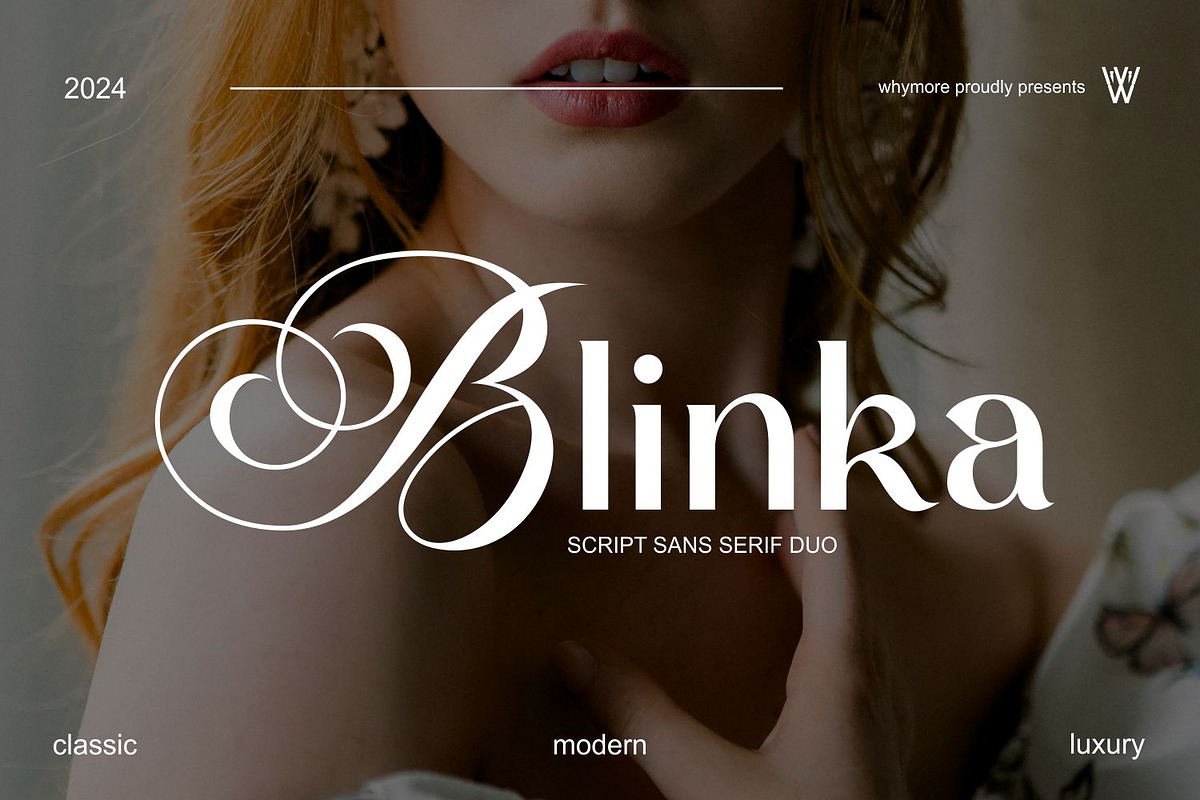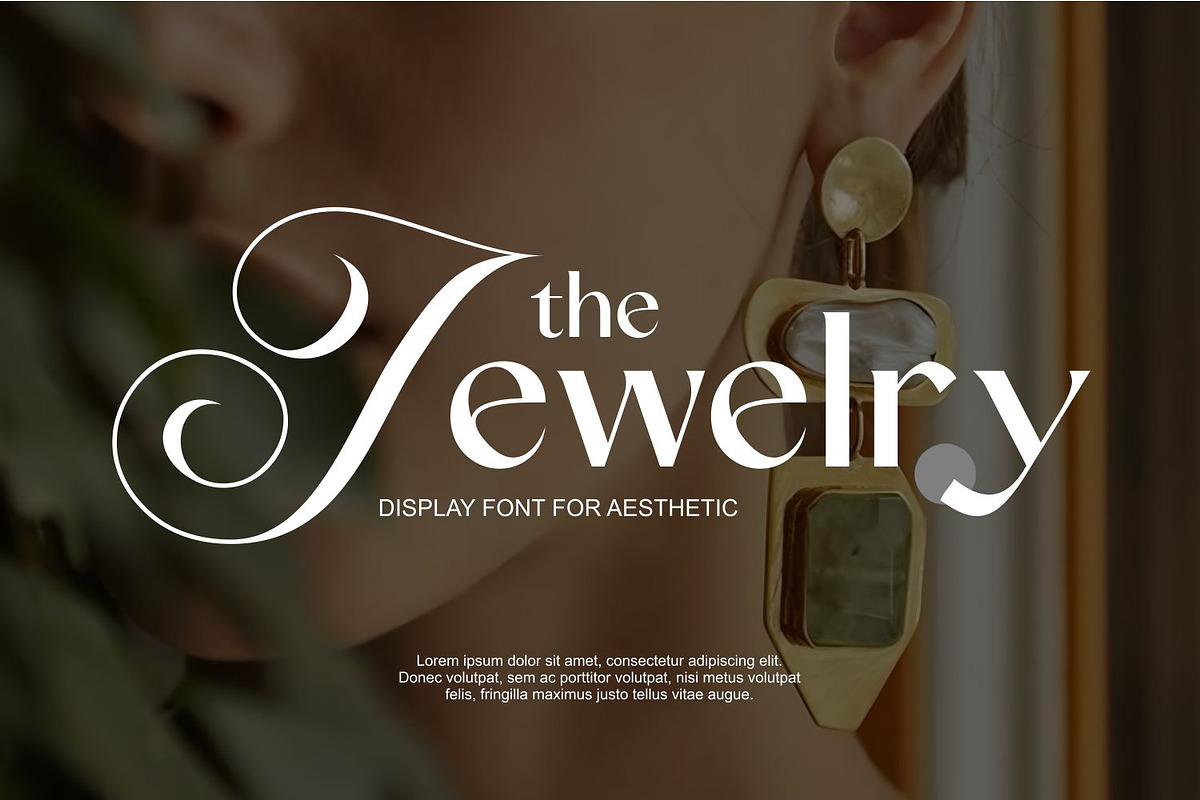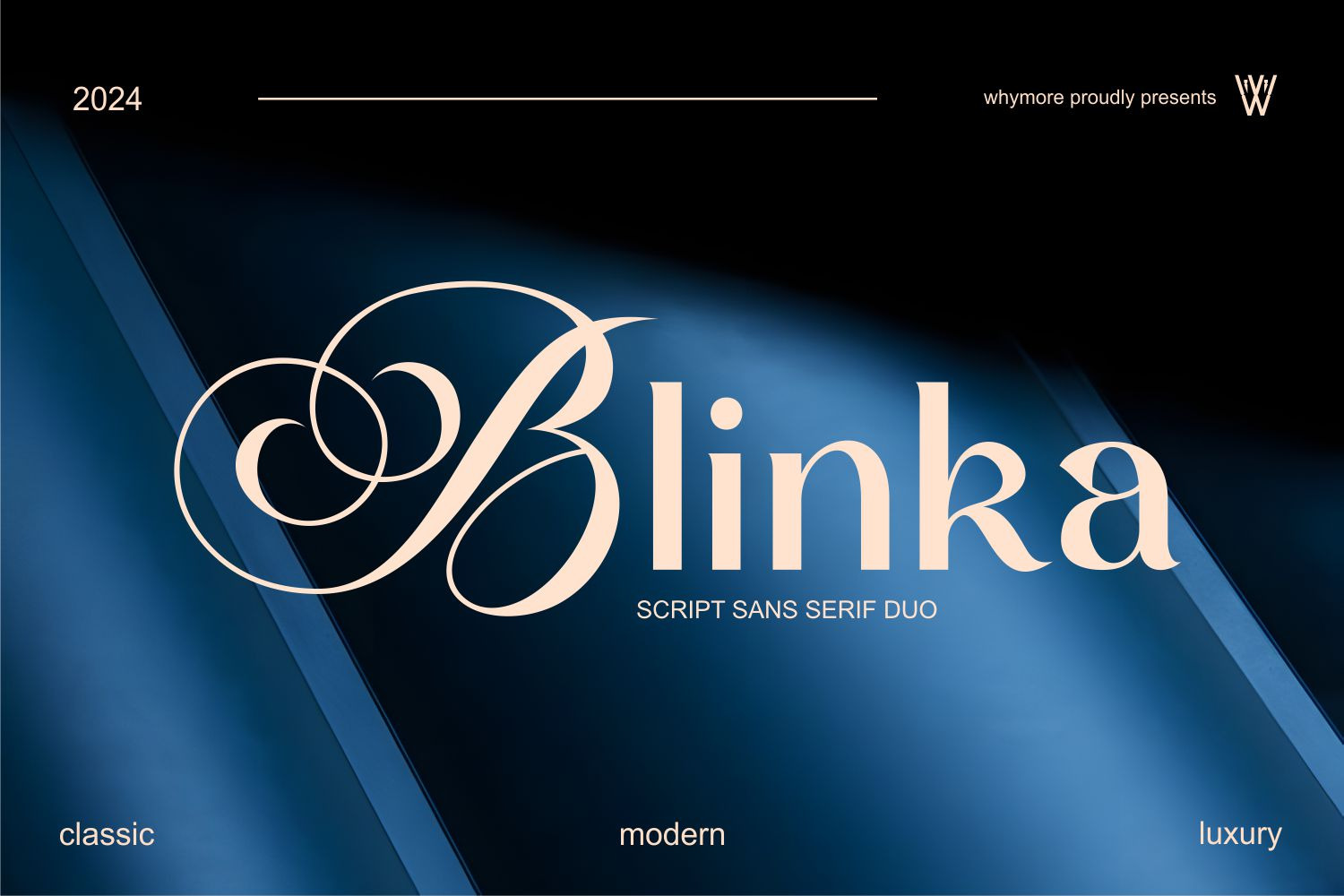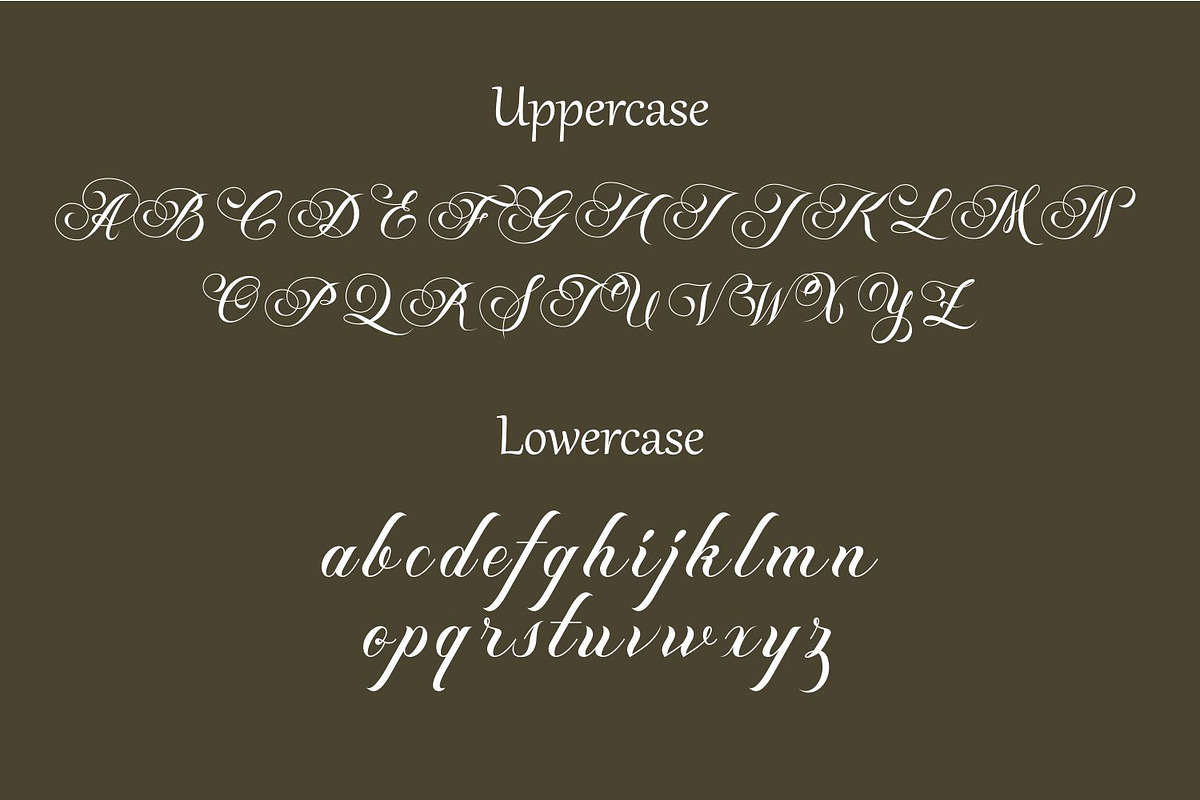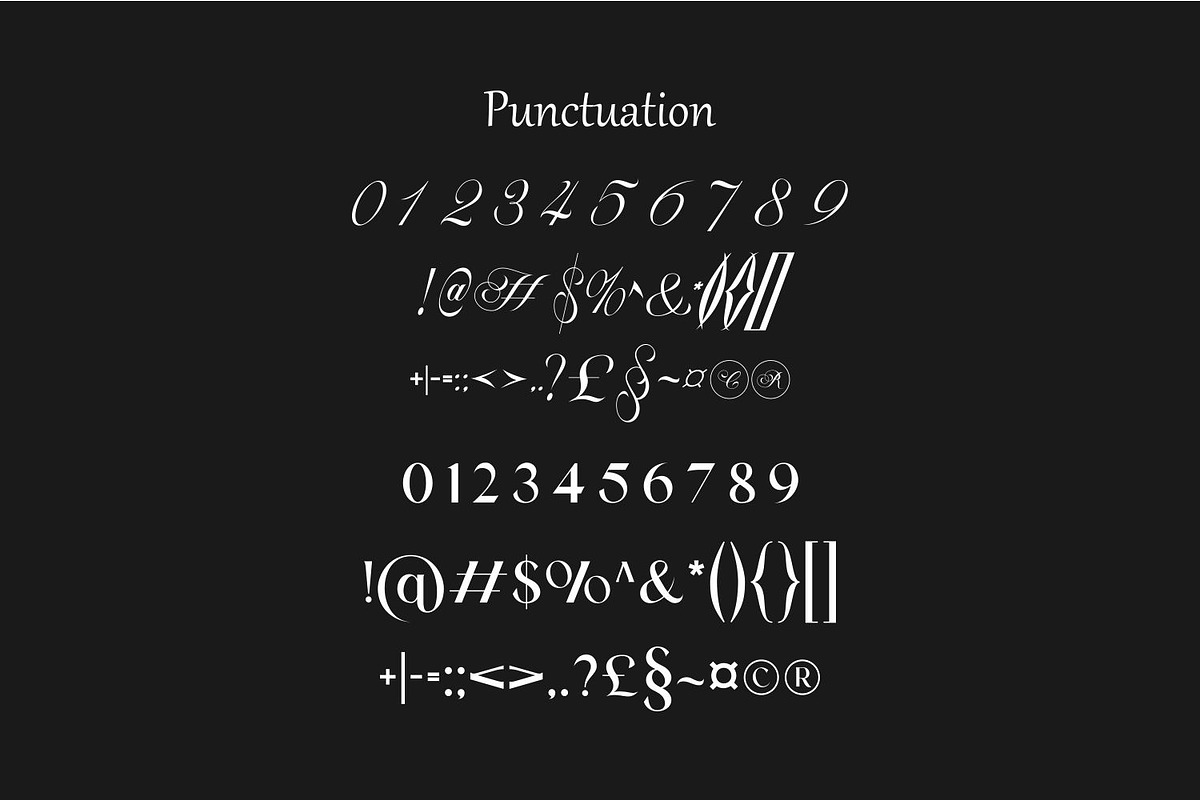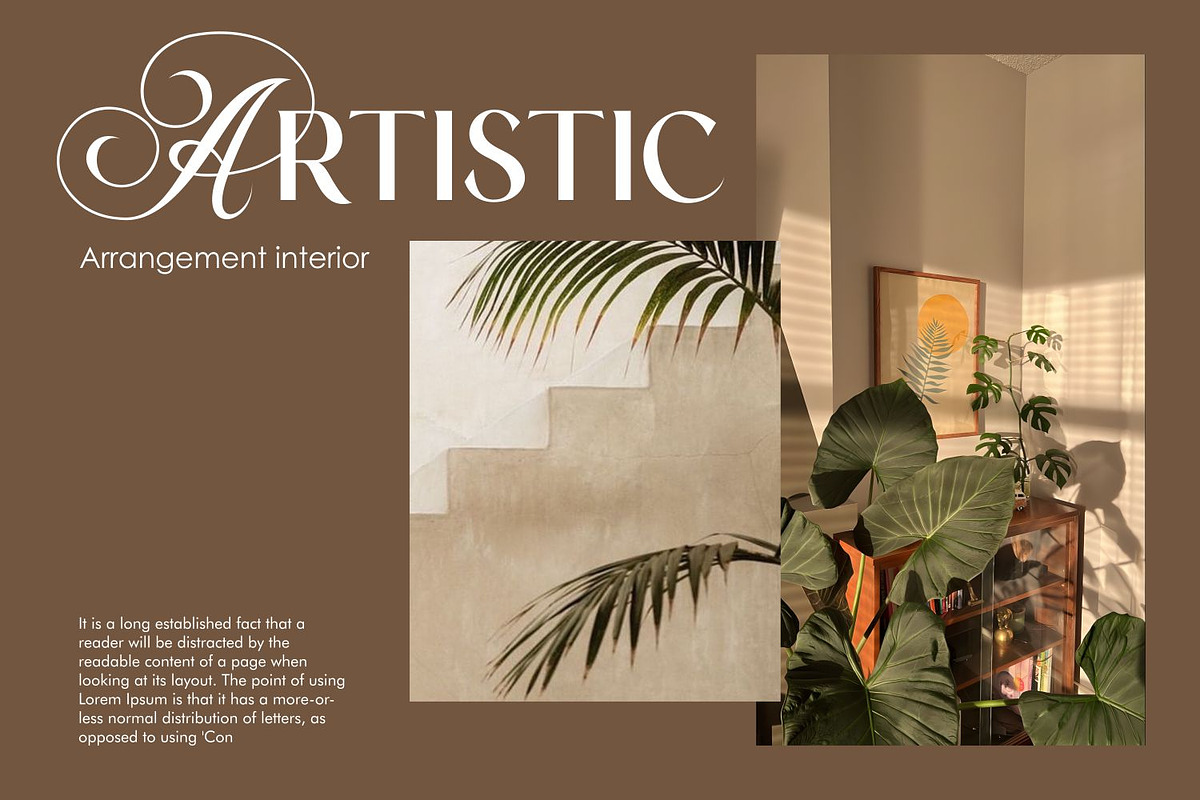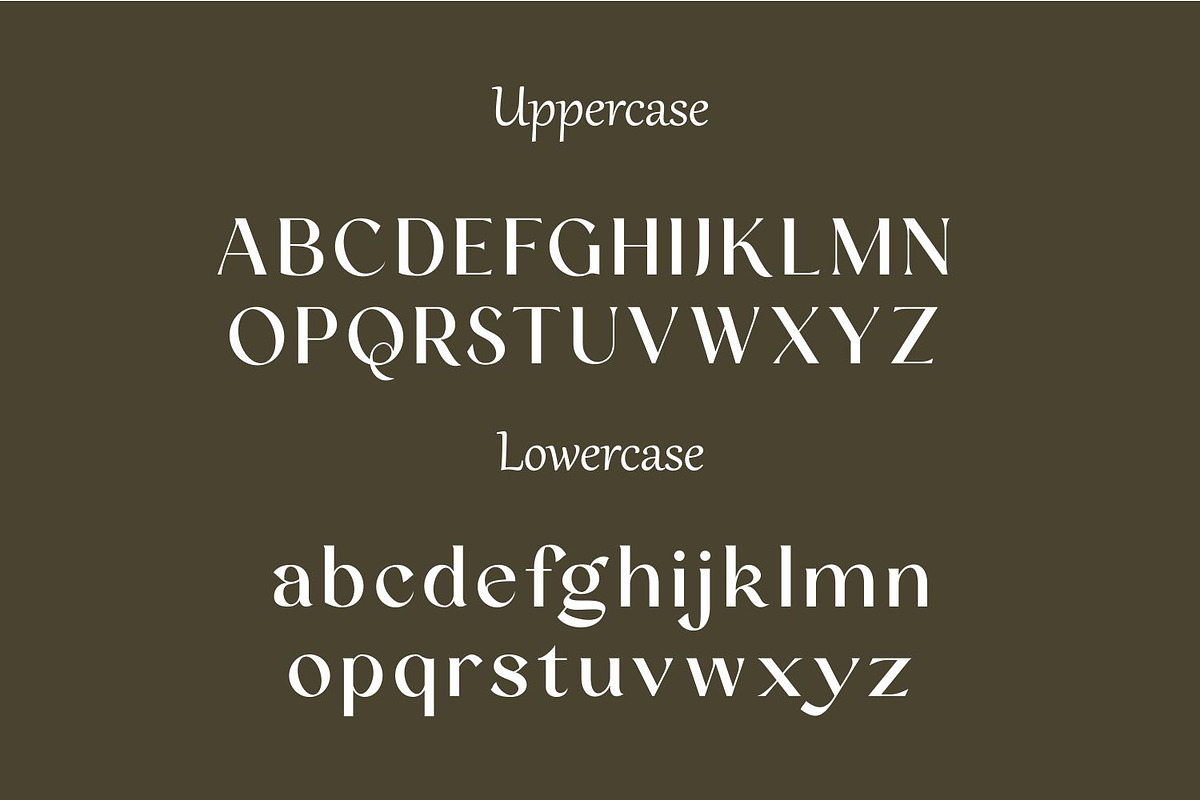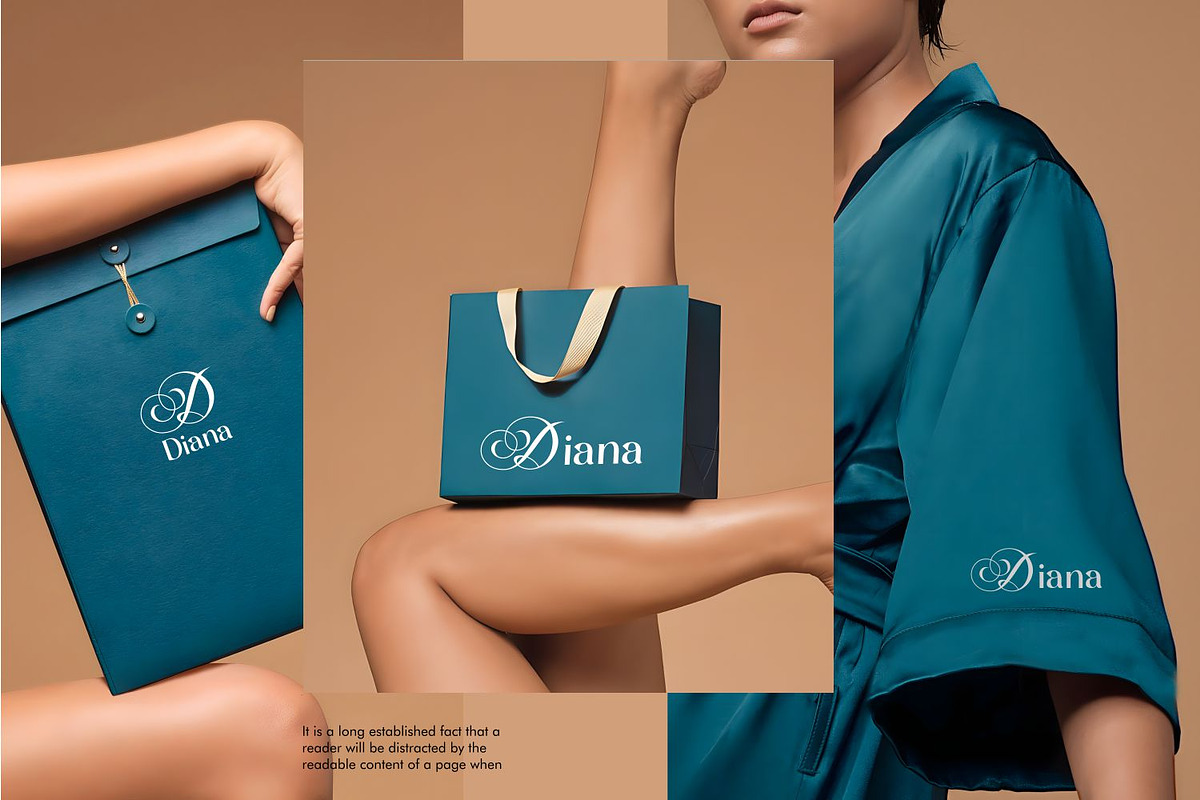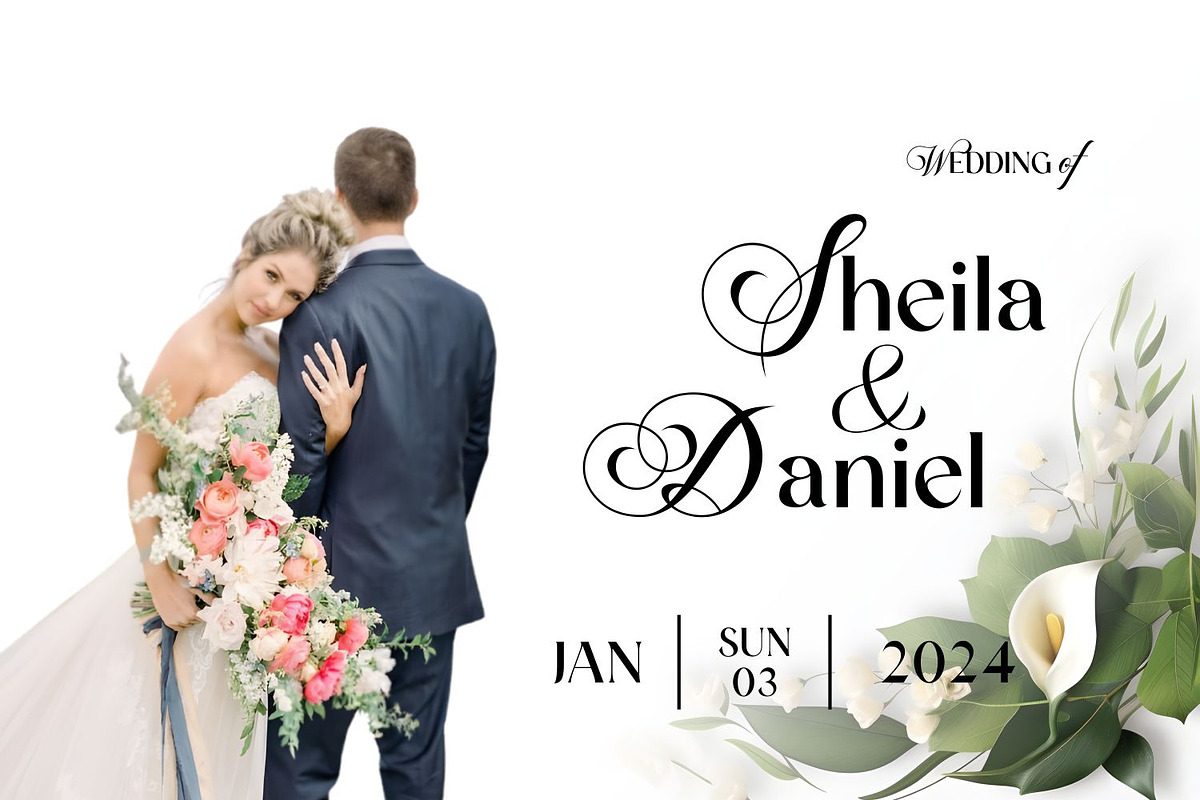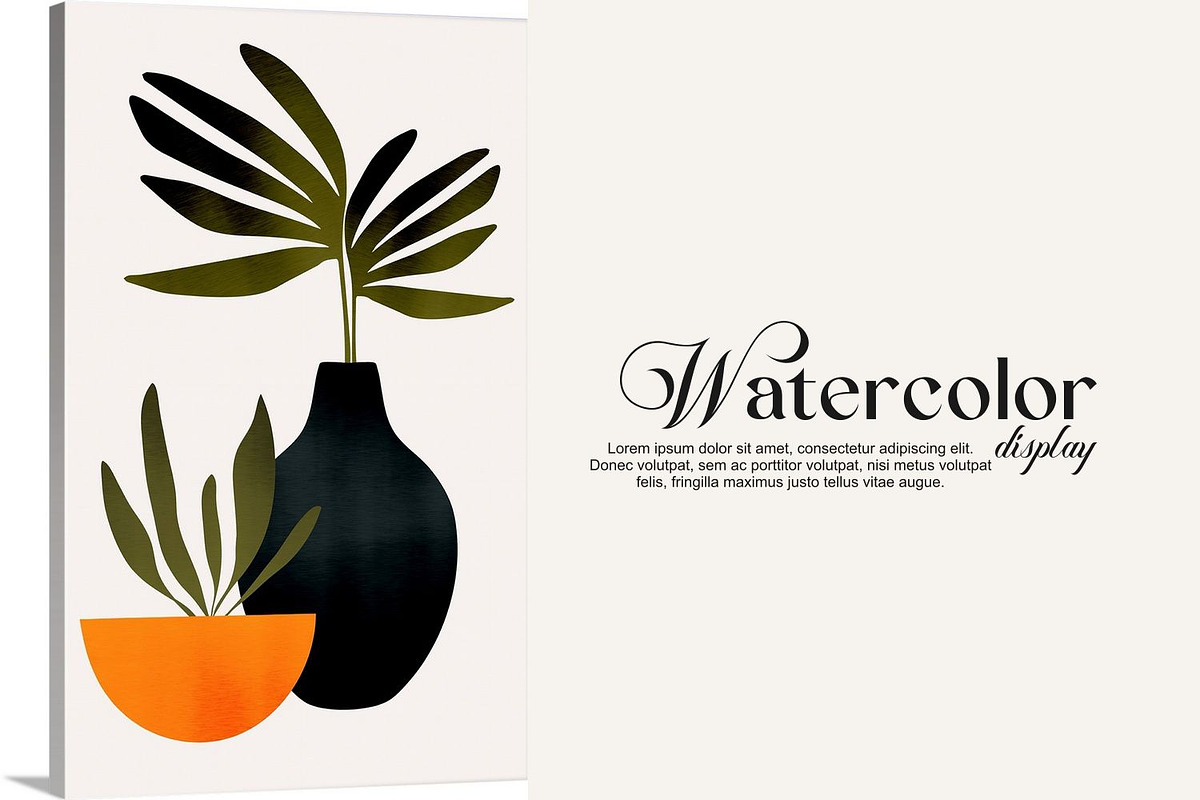
Blinka Bold Script Serif Font Duo
Meet Blinka, the perfect script and serif font duo for modern luxury designs. This elegant pairing combines bold cursive strokes with refined serif details, making it the ideal choice for creators seeking sophistication and flexibility in one package.
Blinka is tailored for:
Graphic Designers: Craft premium logos, magazine titles, and luxury branding. Brand Strategists: Develop high-end brand identities with timeless appeal. Wedding Stationery Designers: Create stunning invitations and event materials. Packaging Designers: Elevate product designs for beauty, fashion, and lifestyle brands.
With its harmonious blend of boldness and grace, Blinka empowers your projects with a touch of exclusivity. Perfect for logos, branding, social media posts, web designs, and editorial layouts. Fully compatible with Adobe Illustrator, Photoshop, and Canva.
Additional Features: ✅ Multilingual Support ✅ Uppercase Alphabet A-Z ✅ Lowercase Alphabet a-z ✅ Alternate Characters ✅ Numbers 0-9 ✅ Selected Punctuation